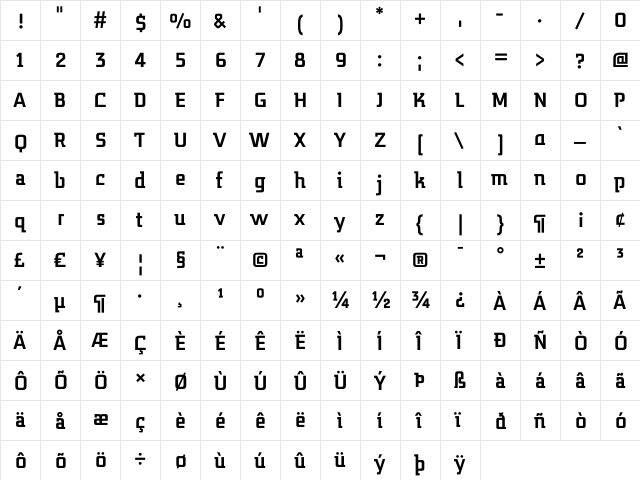
MidnightKernboy Bold
Design Context for MidnightKernboy Typeface
MidnightKernboy offers clean, dependable letterforms without strong stylistic allegiance, making it a practical choice for designers who need flexibility. The heavy weight commands attention and anchors typographic hierarchies.